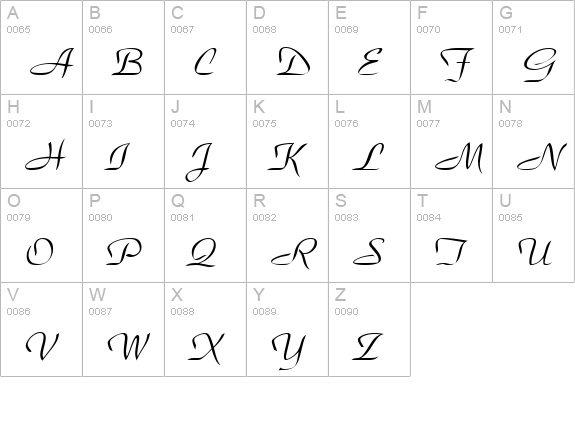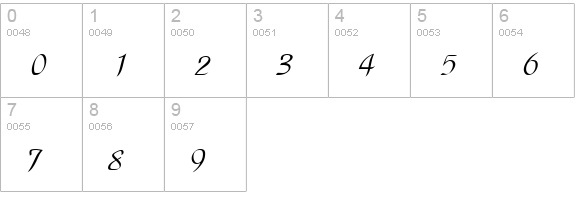
ParkAveD Font Details
Introducing ParkAveD, a remarkable font that exudes elegance and sophistication. This exquisite typeface is perfect for those seeking to add a touch of class to their designs. With its clean lines and stylish curves, ParkAveD captures the essence of a luxury brand, making it ideal for high-end logos, fashion magazines, and upscale invitations. What sets ParkAveD apart is not only its aesthetic appeal but also its versatility. Whether you're designing a wedding invitation, creating a branding project, or crafting an editorial layout, this font seamlessly adapts to any context, effortlessly elevating your design to new heights. The best part? ParkAveD is absolutely free! You heard it right – this exceptional font can be freely downloaded at FontsMarket.com, your go-to source for high-quality fonts. Now, you can enhance your creative projects without worrying about breaking the bank. So why wait? Embrace the allure of ParkAveD and unlock a world of design possibilities. Download this captivating font today and let its refined charm transform your creations into works of art.